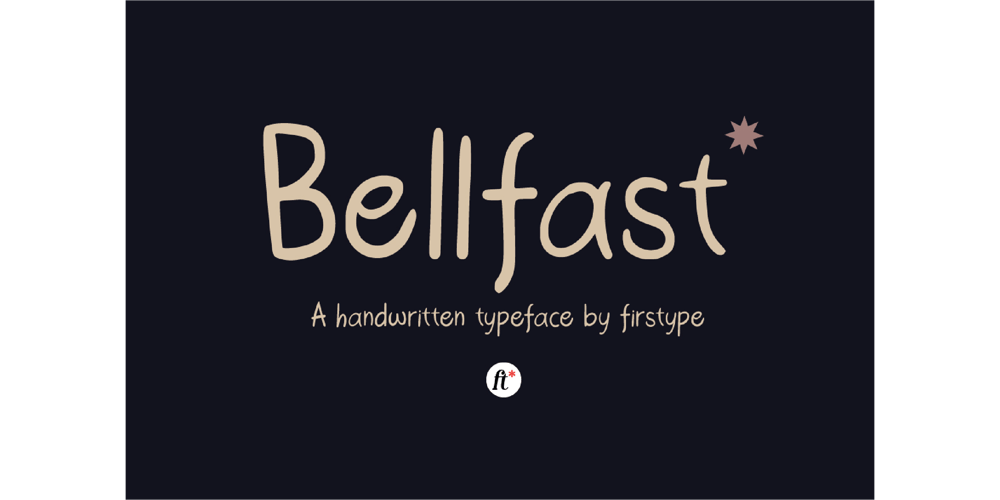
Bellfast Handwritten Script Extras Font Family was designed by Adrian Syauqi and published by Firstype Studio. Bellfast Handwritten Script Extras contains 3 styles and family package options. Introducing Bellfast, a delightful script font that captures the essence of natural handwriting with a cheerful and humble twist. Bellfast is the perfect choice for those seeking a typeface that radiates a joyful and down-to-earth vibe, making it ideal for children’s magazines, children’s books, and various creative projects. It is available in multiple licensing options to cater to your diverse design needs.Natural Handwriting Feel:Bellfast replicates the warmth and authenticity of natural handwriting, adding a personal touch to your designs. Its flowing strokes and playful character bring a sense of genuineness to your creative projects.Cheerful and Humble Vibes:What sets Bellfast apart is its ability to evoke cheerful and humble emotions. This font is designed to spread positivity, making it a perfect choice for projects aimed at children or those that seek to convey a friendly and approachable message.Perfect for Children’s Content:Bellfast is tailor-made for children’s magazines, books, and related content. Its friendly and approachable style helps engage young readers while maintaining readability.Multiple Licensing Options:We understand that different projects have different licensing requirements. Bellfast is available in various licensing options, including personal, commercial, and extended licenses. Choose the one that suits your specific project.Add a Touch of Natural Charm:With Bellfast, you’re not just choosing a font; you’re adding a touch of natural charm and sincerity to your designs.Choose Your License:Explore our licensing options and select the one that aligns with your project’s needs. Whether you’re a designer, publisher, or creative enthusiast, Bellfast has a license that fits your requirements.Infuse Your Designs with Joy and Sincerity with Bellfast – Where Natural Handwriting Meets Cheerful Humility.This description highlights the natural handwriting feel, cheerful and humble vibes of the “Bellfast” script font, its suitability for children’s content, and the availability of multiple licensing options to cater to different users.